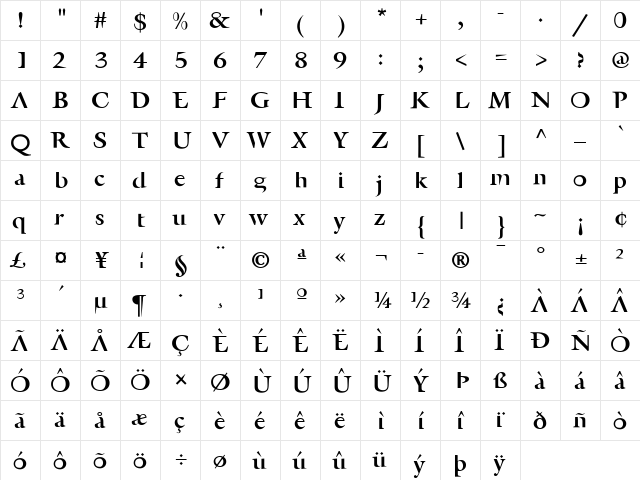
AFRetrospecta Bold
Design Context for AFRetrospecta Typeface
AFRetrospecta has the warm character of retro typography — evoking diners, record sleeves, and the golden age of print advertising. Its bold stroke weight gives it real presence on the page.
Ideal for diner signage, record shop branding, 70s/80s-themed projects, and heritage product labels.
Font Pairing: Combine AFRetrospecta with a simple slab or neutral sans — period-accurate companions reinforce the vintage feel without competing for attention.
Pro Tip: Lean into AFRetrospecta's period character by pairing it with aged paper textures, muted colour palettes, and vintage illustration styles.